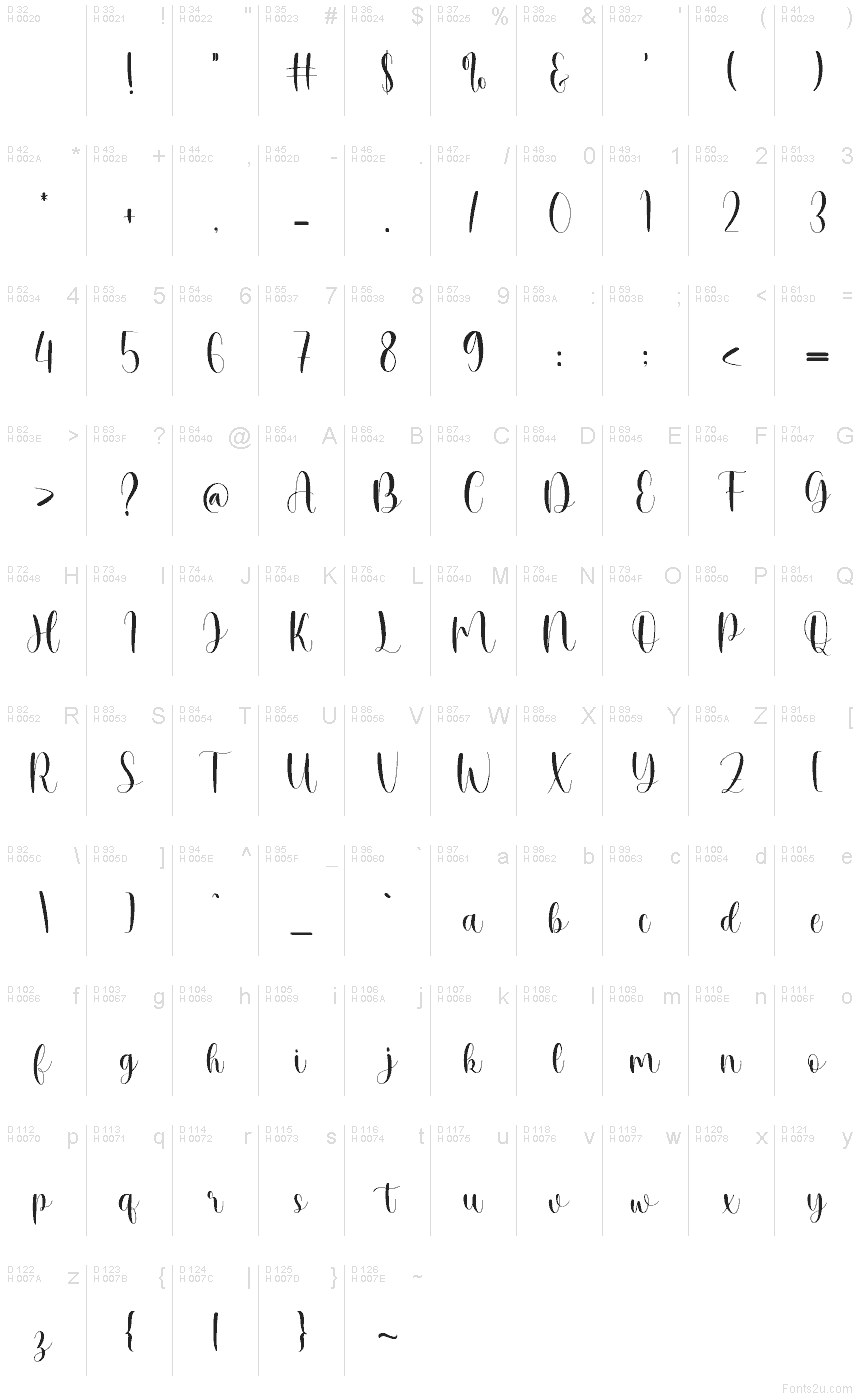
NCL Misty Bouvre
NCL Misty Bouvre font by Enxyclo Studio is a free calligraphy typeface. Its signature look comes from breezy, looping strokes with a soft, inky grain—like a brush pen skating over smooth paper. The letters are tall and airy, with a gentle bounce that keeps things romantic without turning fussy, giving headlines a graceful sweep while staying legible.
Using NCL Misty Bouvre, you can bring effortless charm to wedding invitations, event stationery, boutique logos, candle or cosmetics packaging, quote graphics, photography watermarks, and menu headings. This free font shines when set a bit larger with loose spacing so the swashes can breathe. Pair it with a clean sans-serif for body copy to ground its flowing rhythm.